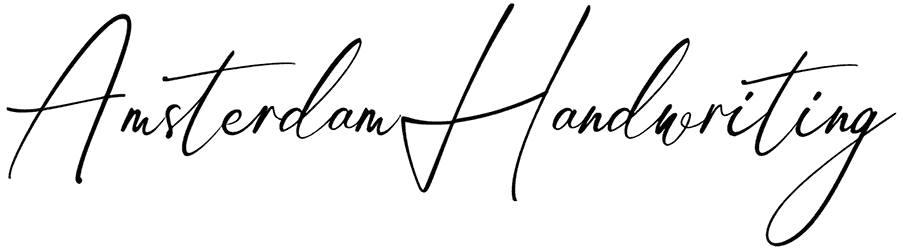
Amsterdam Handwriting Font
If you’re a sentimentalist like us, loving how typing speeds things up but still not quite sure if you want to completely let go of the human touch in your text, today’s handwritten font of RB can help you remember it all along.
Amsterdam Handwriting doesn’t even look like it’s typed. So you can at least pretend! And honestly, this kind of personal attitude works to your advantage when you’re designing quotes, poem books, accessory labels, and more.